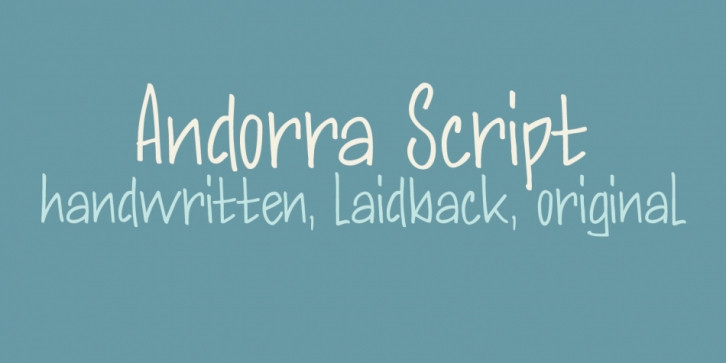
Andorra Script is a hand drawn and kids font family. This typeface has two styles and was published by Hanoded.
Andorra Script is a hand written font - it is very legible, quite elegant (in an informal way) and useful. Andorra Script comes with all diacritics.
· Andorra Script Regular
· Andorra Script Italic